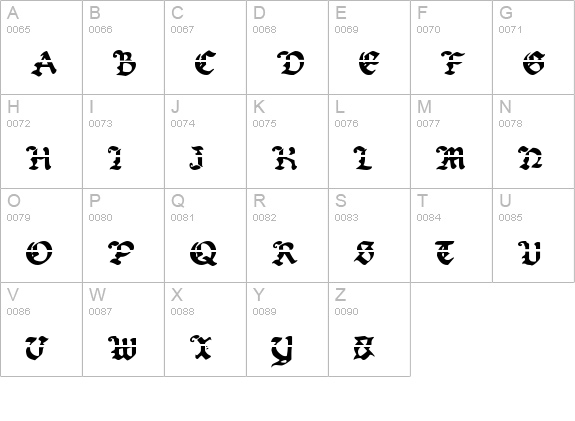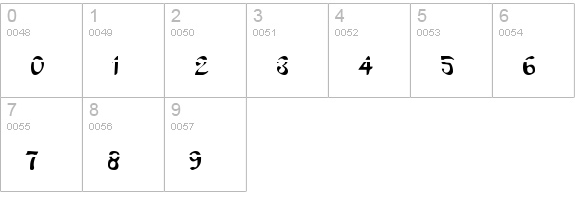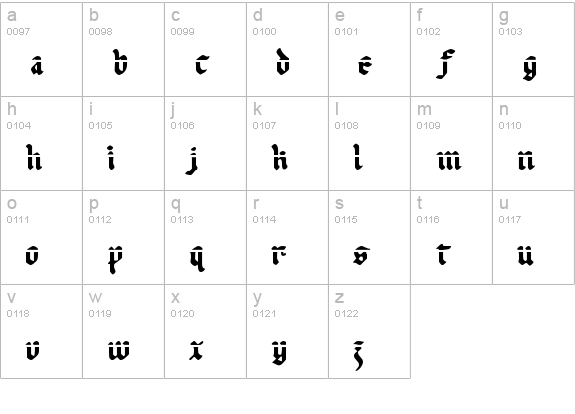
Uberhölme Lazar Font Details
Uberhölme Lazar font is a stunning typeface that captivates with its unique blend of modernity and elegance. Designed with meticulous attention to detail, this font exudes a sense of sophistication and versatility that makes it perfect for a wide range of design projects. With its clean lines and bold character, Uberhölme Lazar commands attention and adds a touch of professionalism to any design. Whether you're working on a logo, packaging, or a website, this font will effortlessly elevate your project to new heights. One of the best features of Uberhölme Lazar font is that it is freely available to download at FontsMarket.com. This means that you can unleash your creativity without any restrictions or limitations. The freedom to use this font in your personal and commercial projects is truly a game-changer. The versatility of Uberhölme Lazar font is further enhanced by its wide range of glyphs and ligatures, allowing you to create unique and eye-catching designs. Whether you want to convey a sense of elegance, modernity, or playfulness, this font has got you covered. In addition to its exceptional design, Uberhölme Lazar font is also highly legible, ensuring that your message is clear and easy to read. Its clean and crisp outlines make it a perfect choice for both print and digital applications. So, if you're looking for a font that combines style, versatility, and the freedom to create without limitations, look no further than Uberhölme Lazar font. Download it for free today at FontsMarket.com and let your creativity soar.